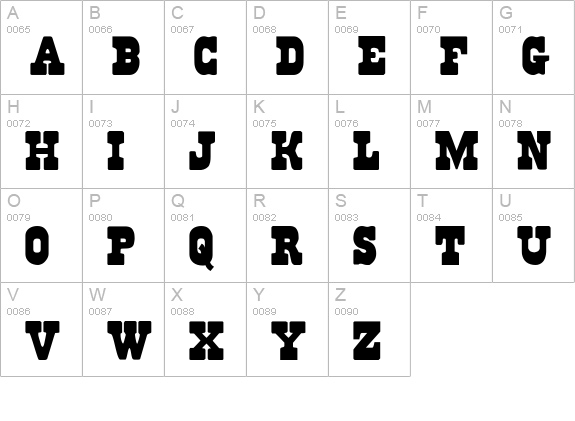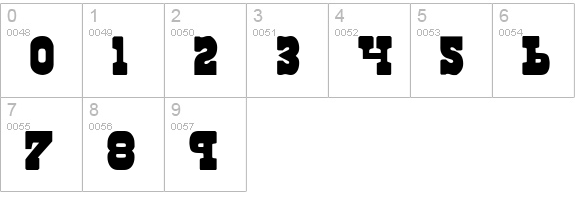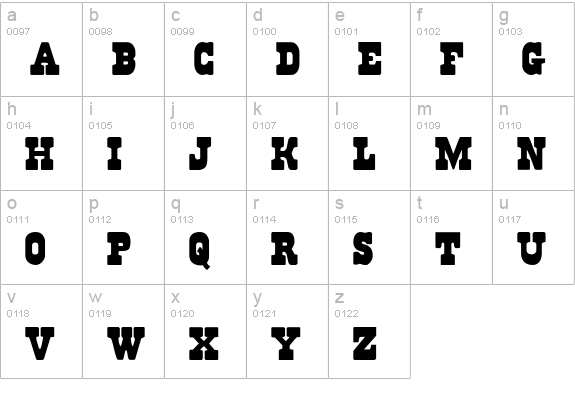
Regulators font is a stunning and versatile typeface that will elevate any design project to new heights. With its sleek and modern appearance, this font exudes confidence and professionalism. Its clean lines and bold strokes make it perfect for headlines, logos, and branding materials. But what sets Regulators font apart is its unique blend of sophistication and playfulness. The sharp edges and geometric shapes give it a contemporary edge, while the subtle curves soften its overall look. This balance makes it suitable for a wide range of applications, from corporate websites to fashion magazines. One of the best things about Regulators font is that it is freely available to download at FontsMarket.com. This means you can easily access this exceptional font without breaking the bank. Whether you are a professional designer or a casual enthusiast, you can enjoy the benefits of Regulators font without any cost. With its extensive character set, Regulators font supports multiple languages, making it a versatile choice for global projects. Its legibility and readability ensure that your message will be conveyed effortlessly, regardless of the language or medium. So if you are looking for a font that combines elegance, modernity, and usability, look no further than Regulators font. Download it for free at FontsMarket.com and let your creativity soar.